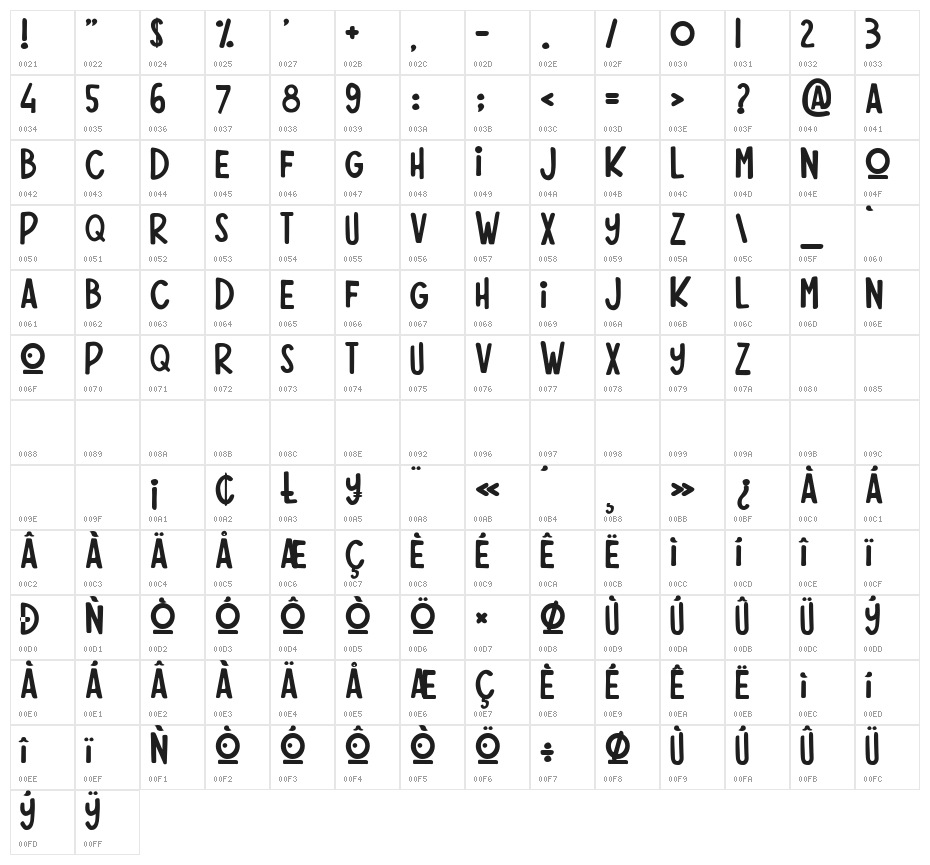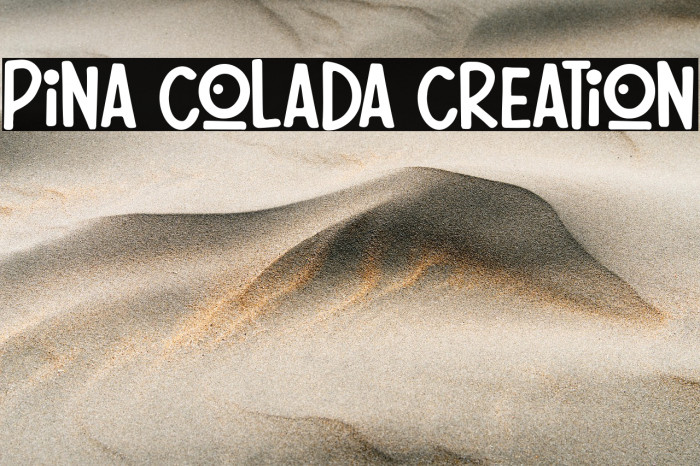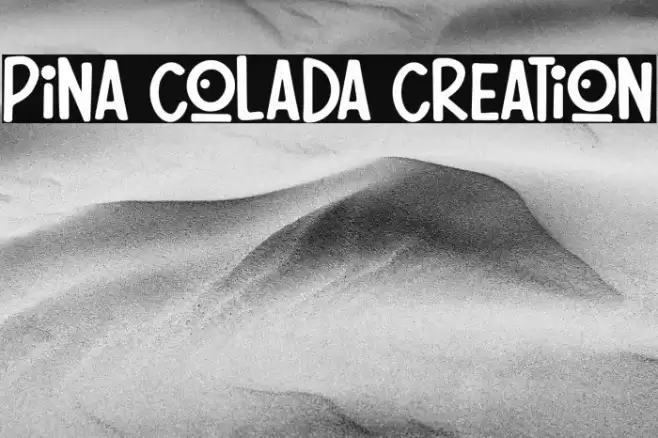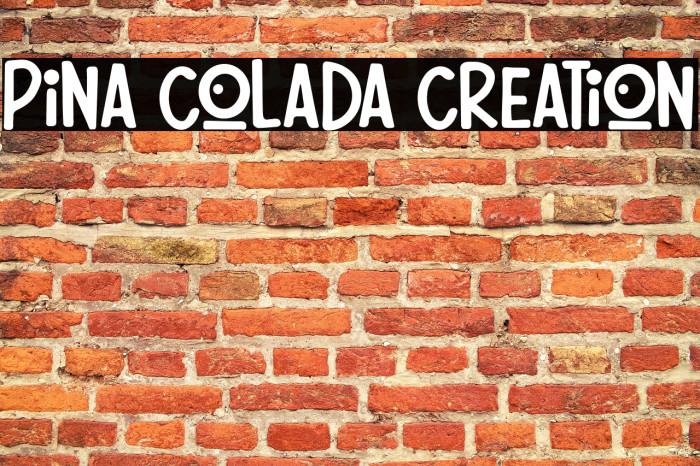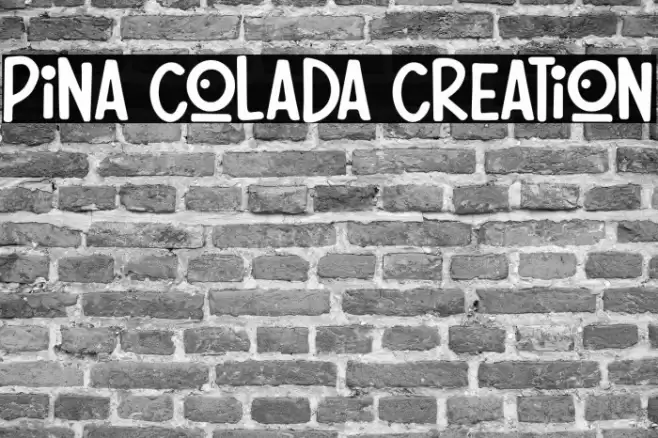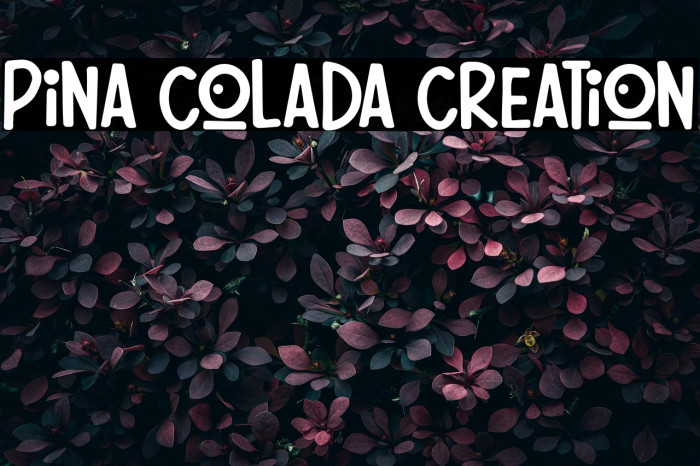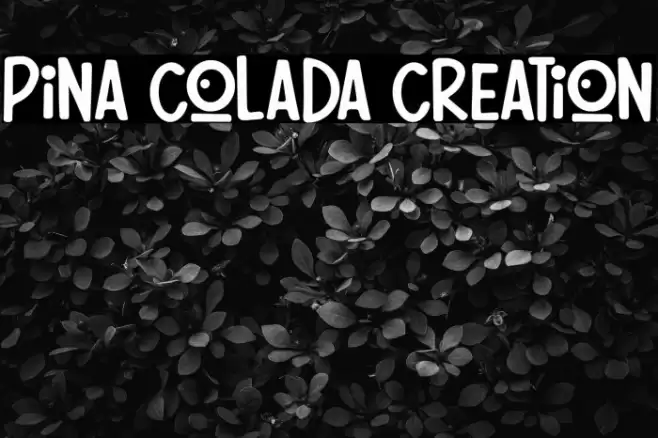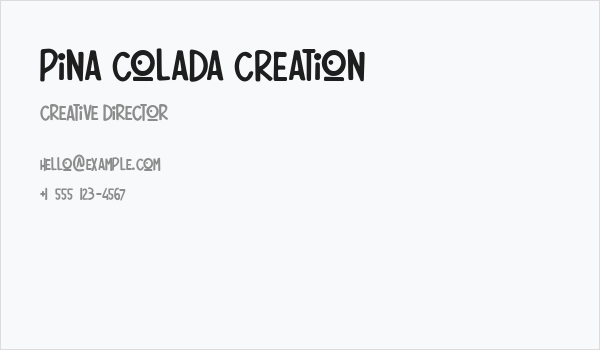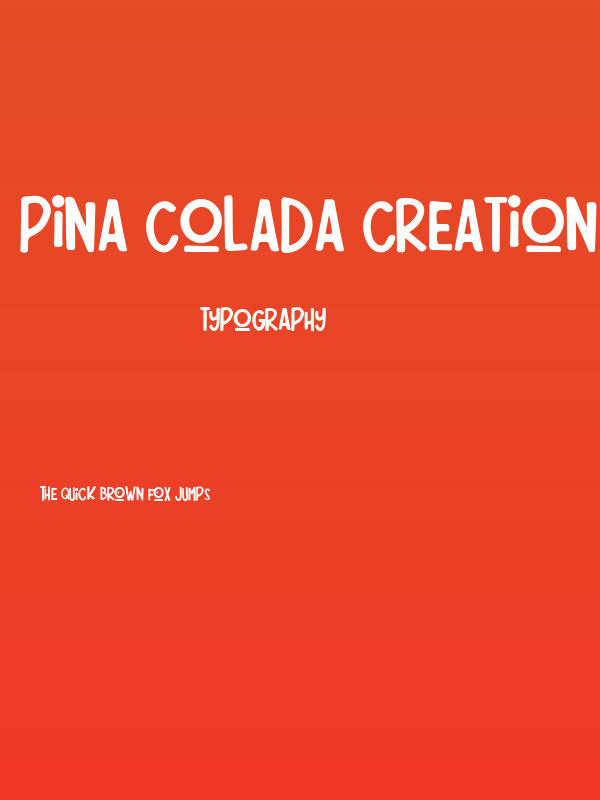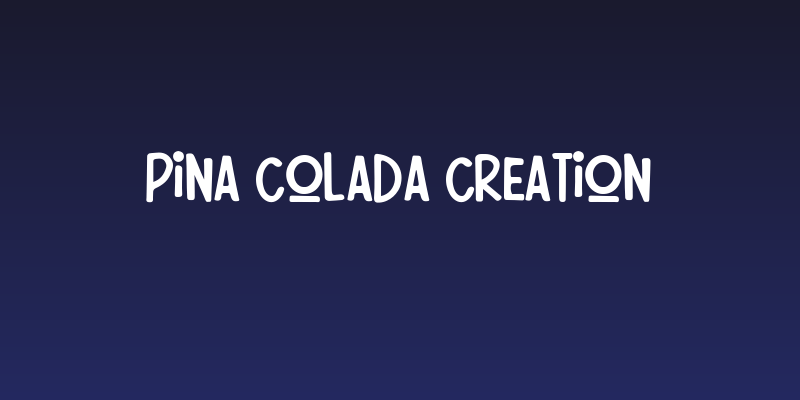
Pina Colada Creation Font
Pina Colada Creation Description
This playful and bold font features rounded edges and a slightly irregular, hand-drawn appearance, giving it a whimsical and friendly vibe. The uppercase and lowercase letters maintain a consistent style, with a noticeable emphasis on curves and a slight tilt that adds to its casual charm. Numbers and special characters are designed to match the overall aesthetic, making the font versatile for various uses. The font's thick strokes and uniform weight contribute to its legibility, while the quirky design elements, such as the unique treatment of certain characters, add a touch of personality.
| Overall Style | Playful, Casual |
| Proposed Projects | Ideal for children's books, playful branding, greeting cards, and casual posters. |